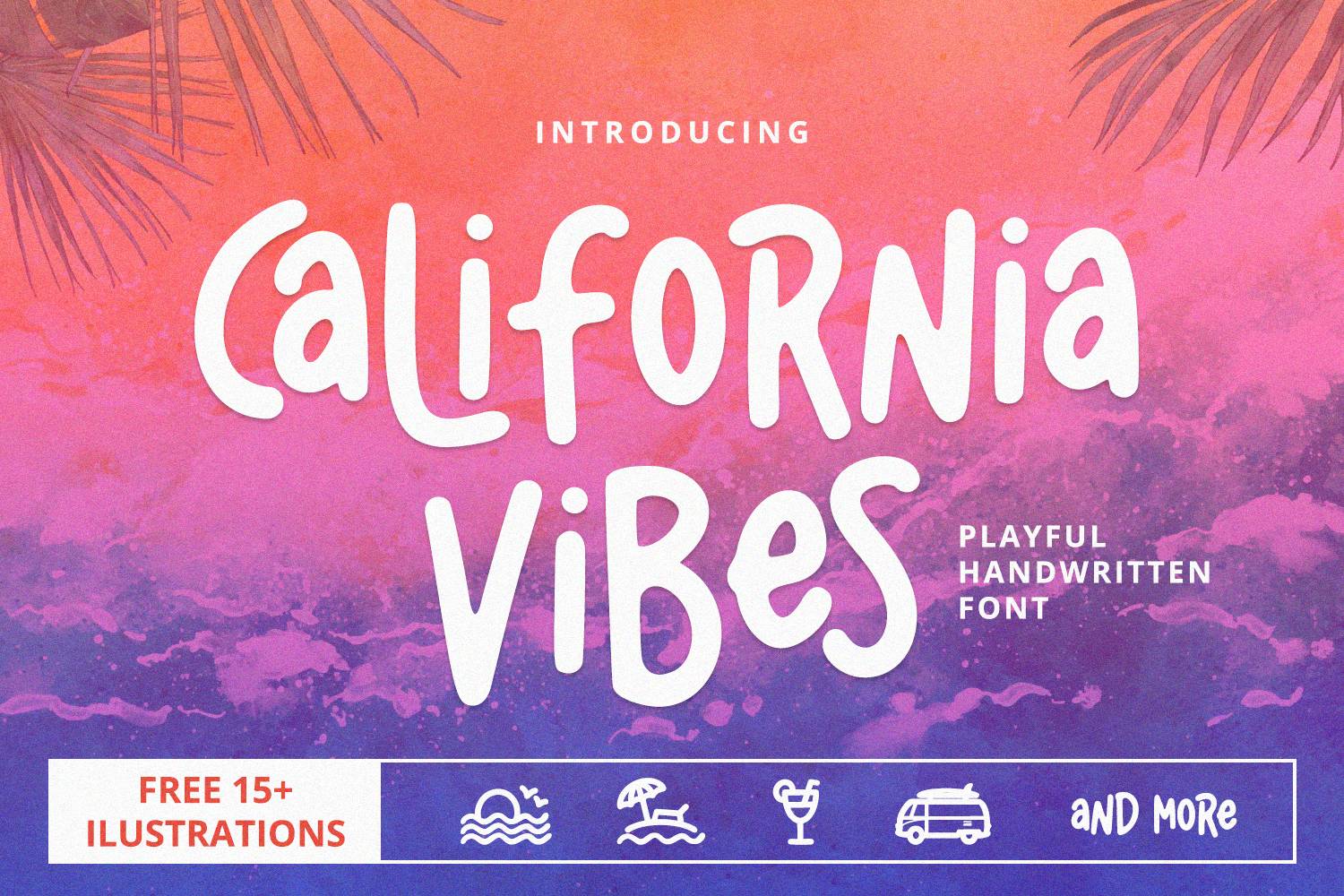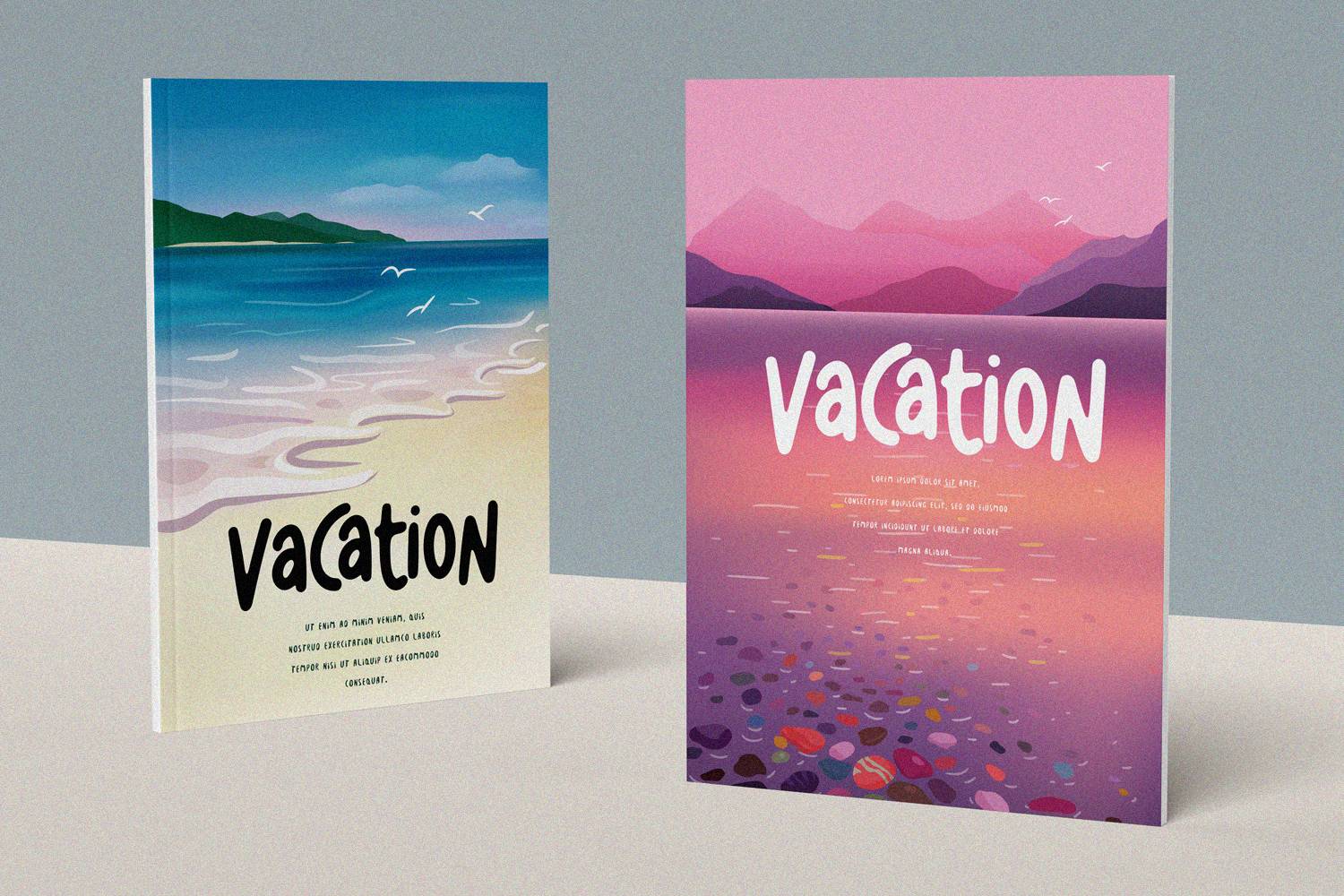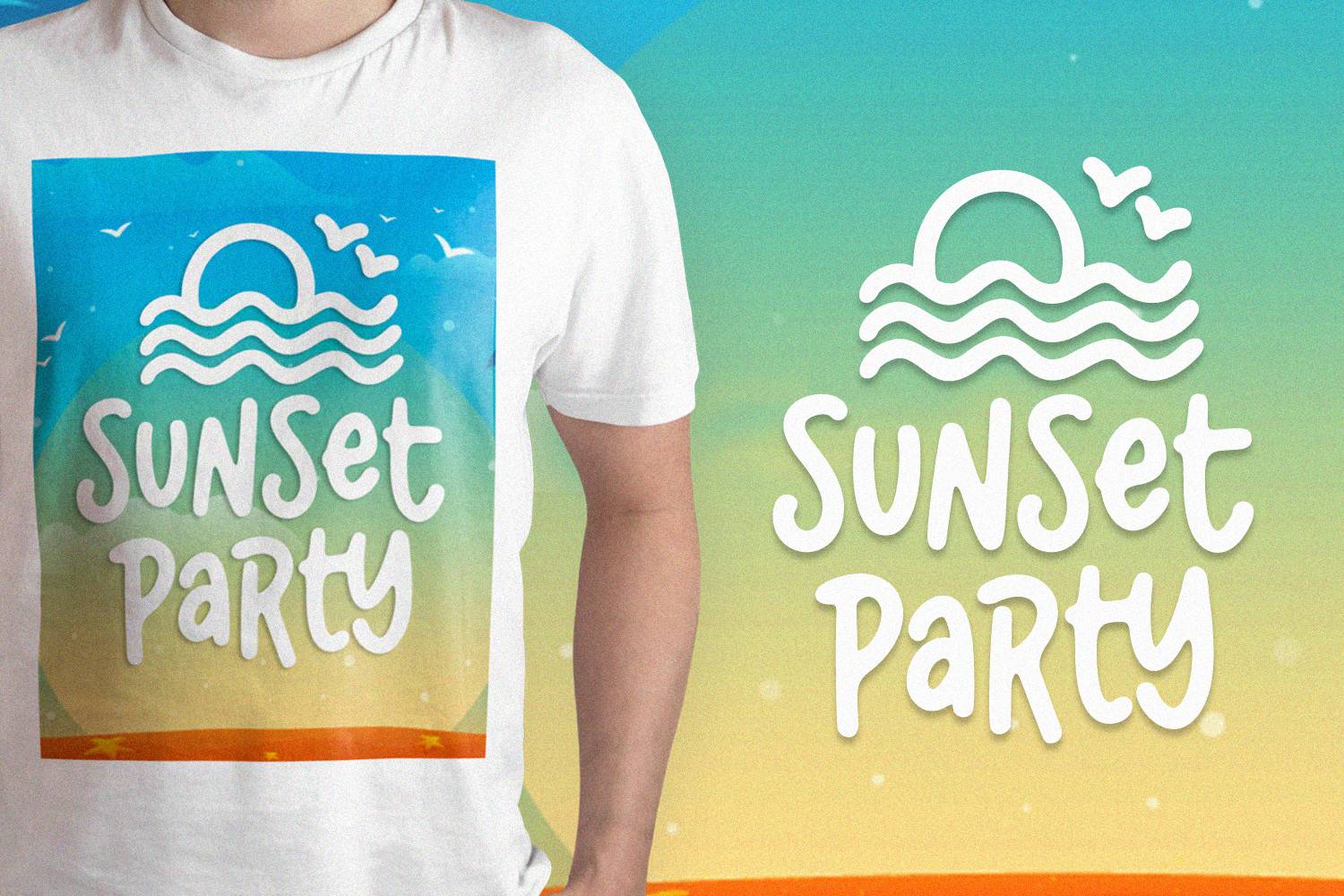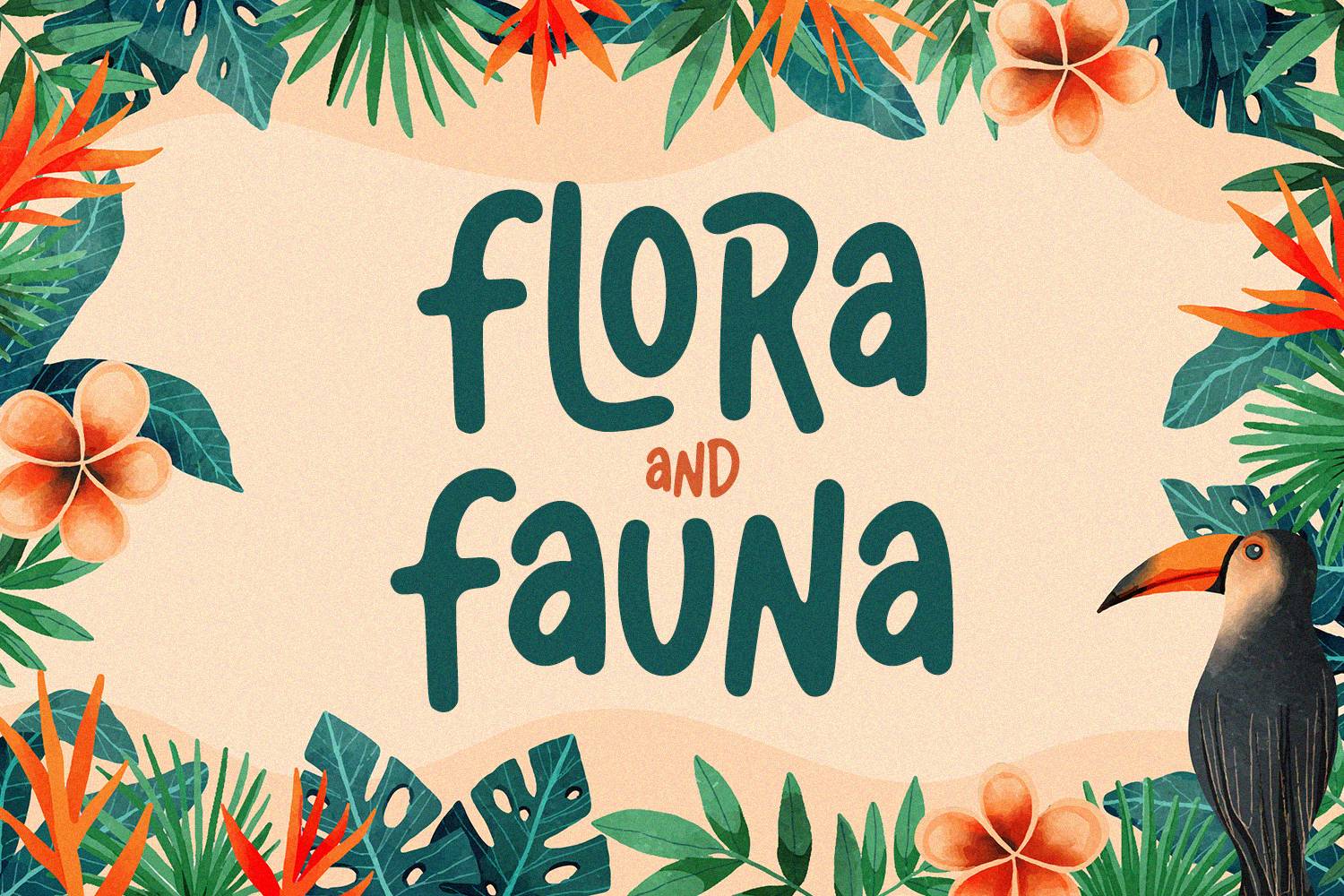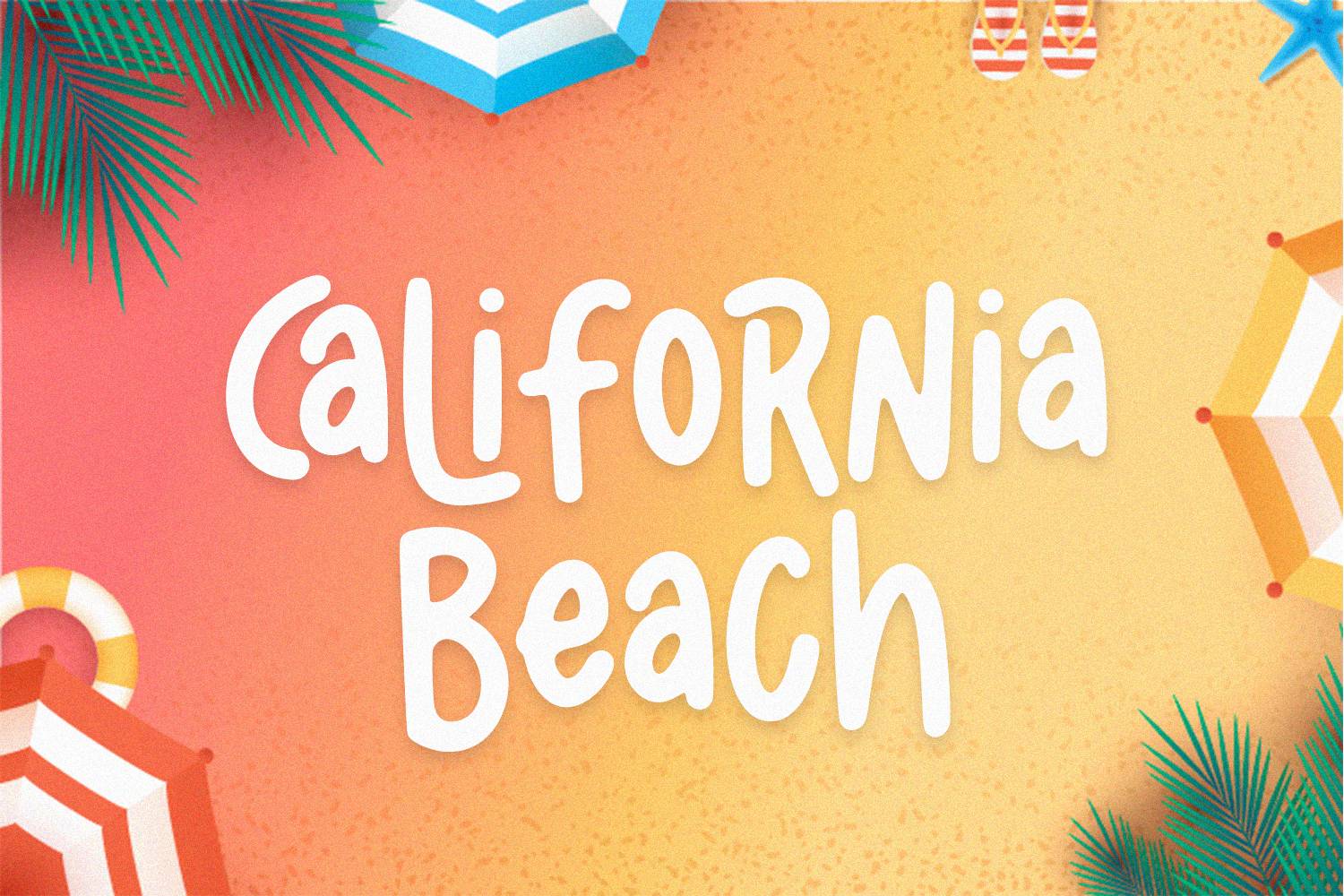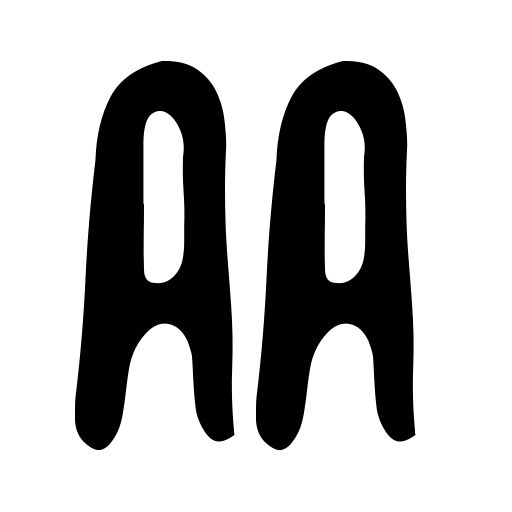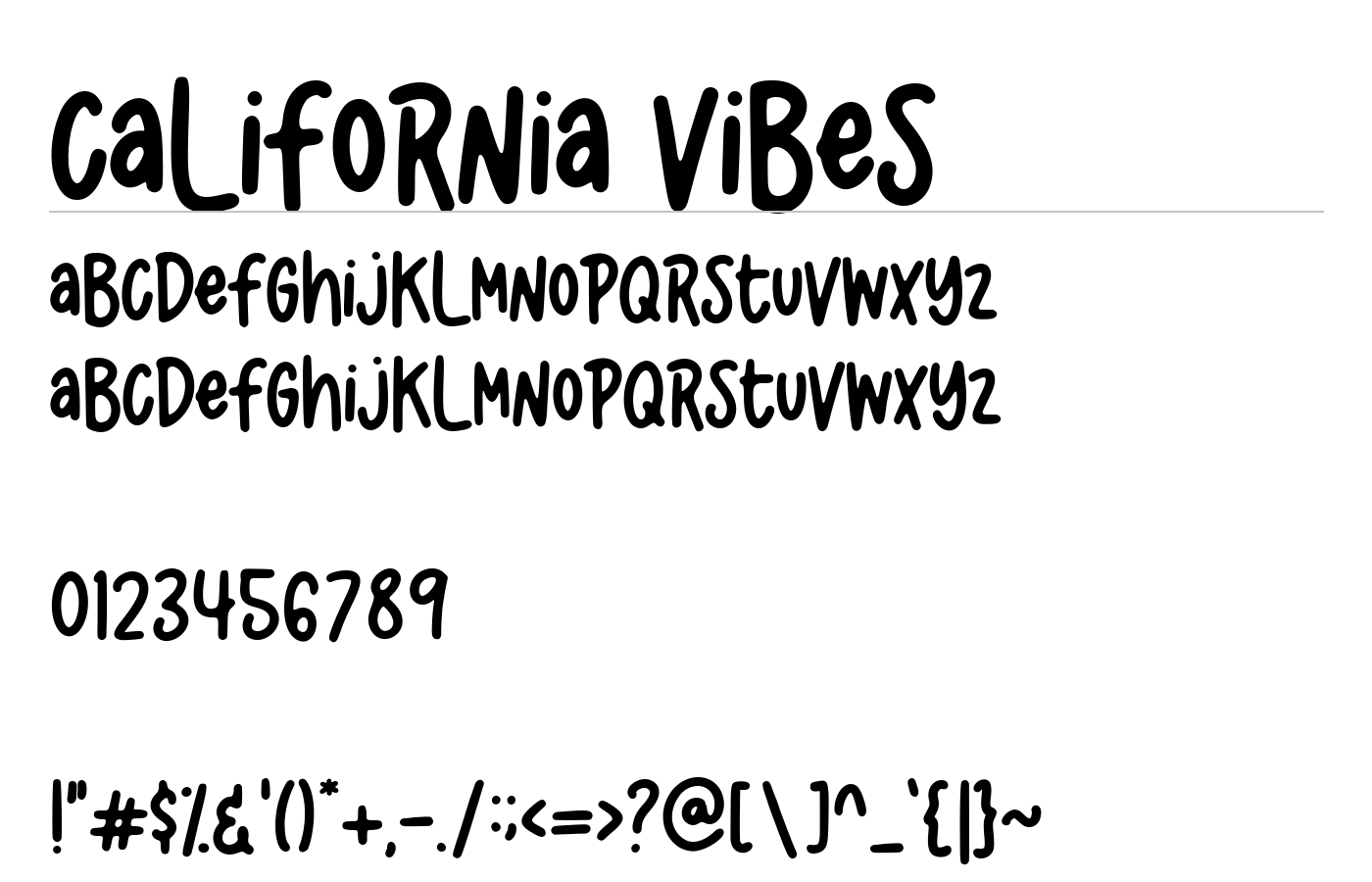
California Vibes is a playful and casual handwritten sans serif font with a friendly, relaxed feel. Its irregular letterforms and rounded strokes give it a fun, approachable personality, making it ideal for creative projects, lifestyle branding, and informal designs. This font works best for headlines, logos, and packaging where a laid-back, youthful vibe is desired.
California Vibes Font
About California Vibes Font